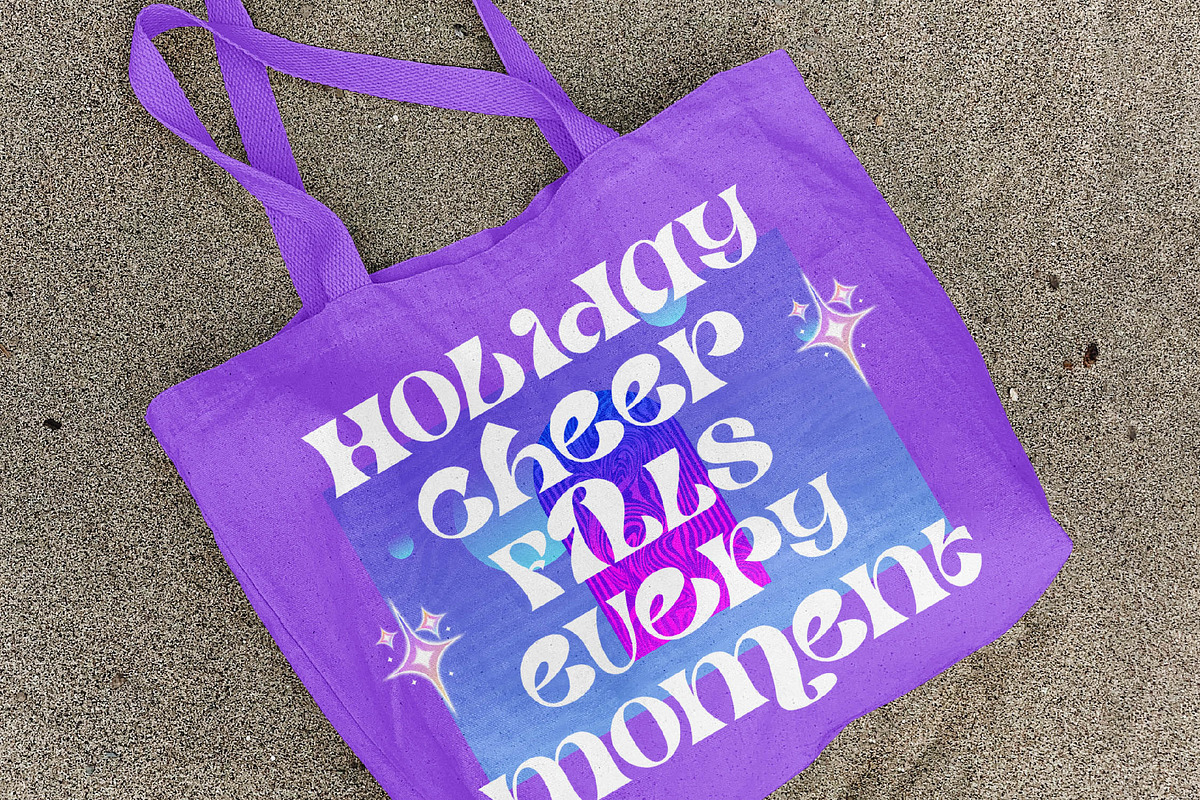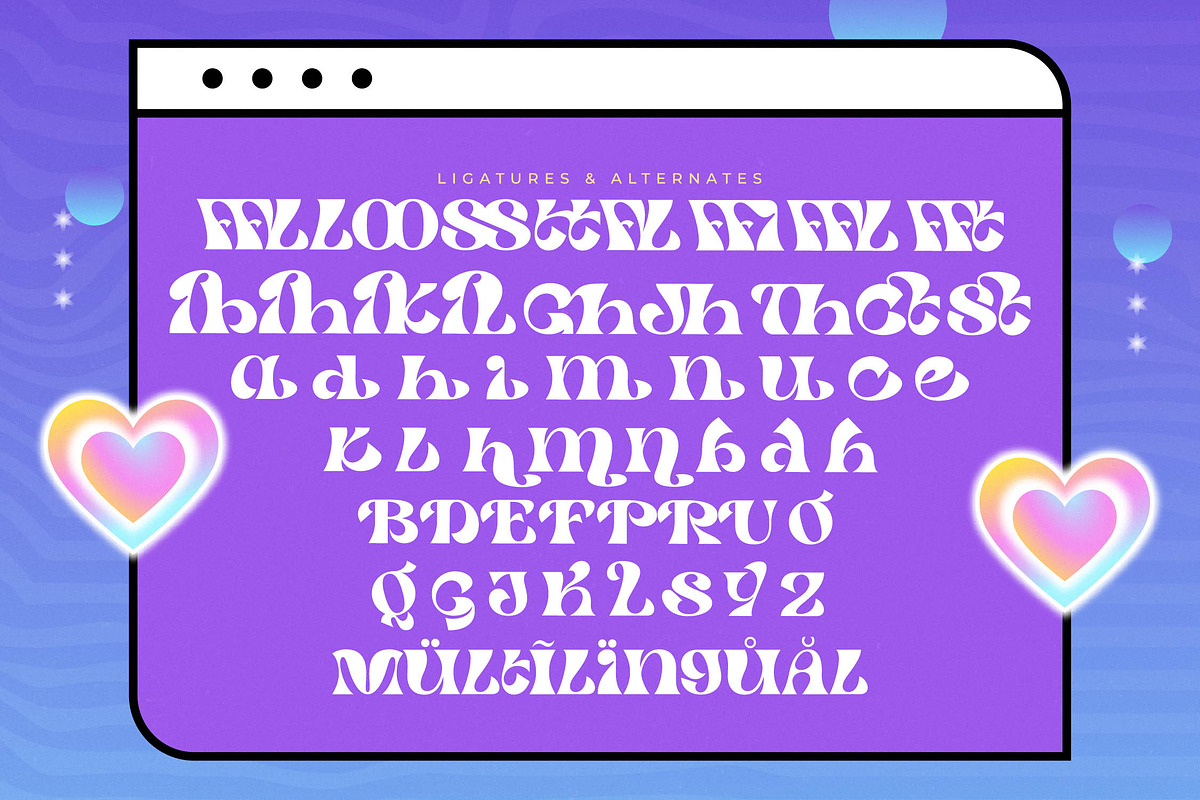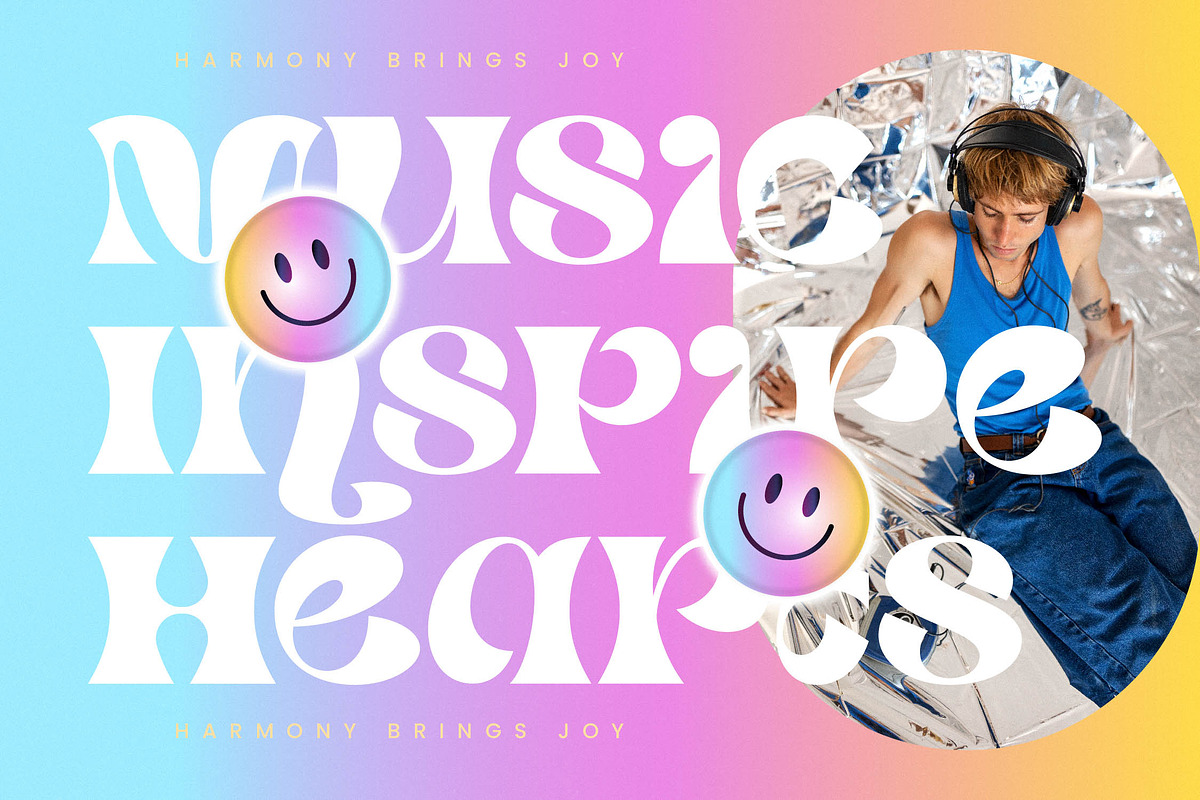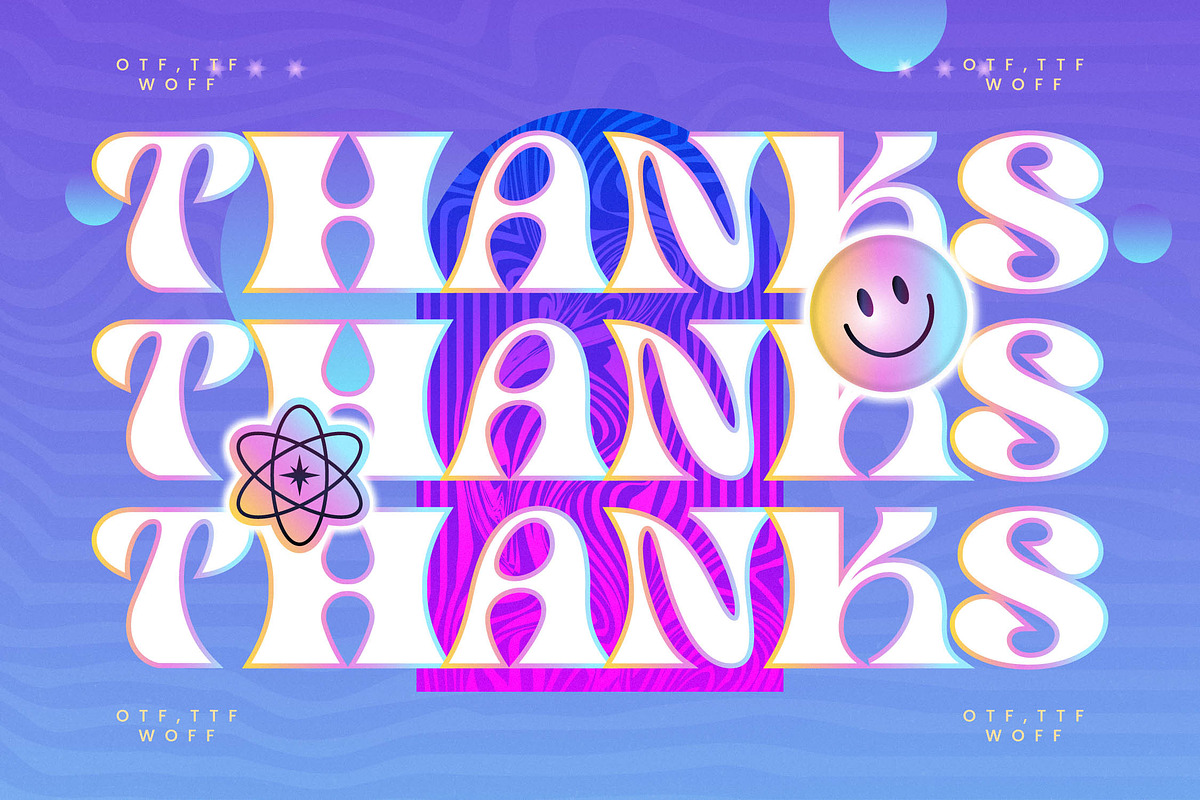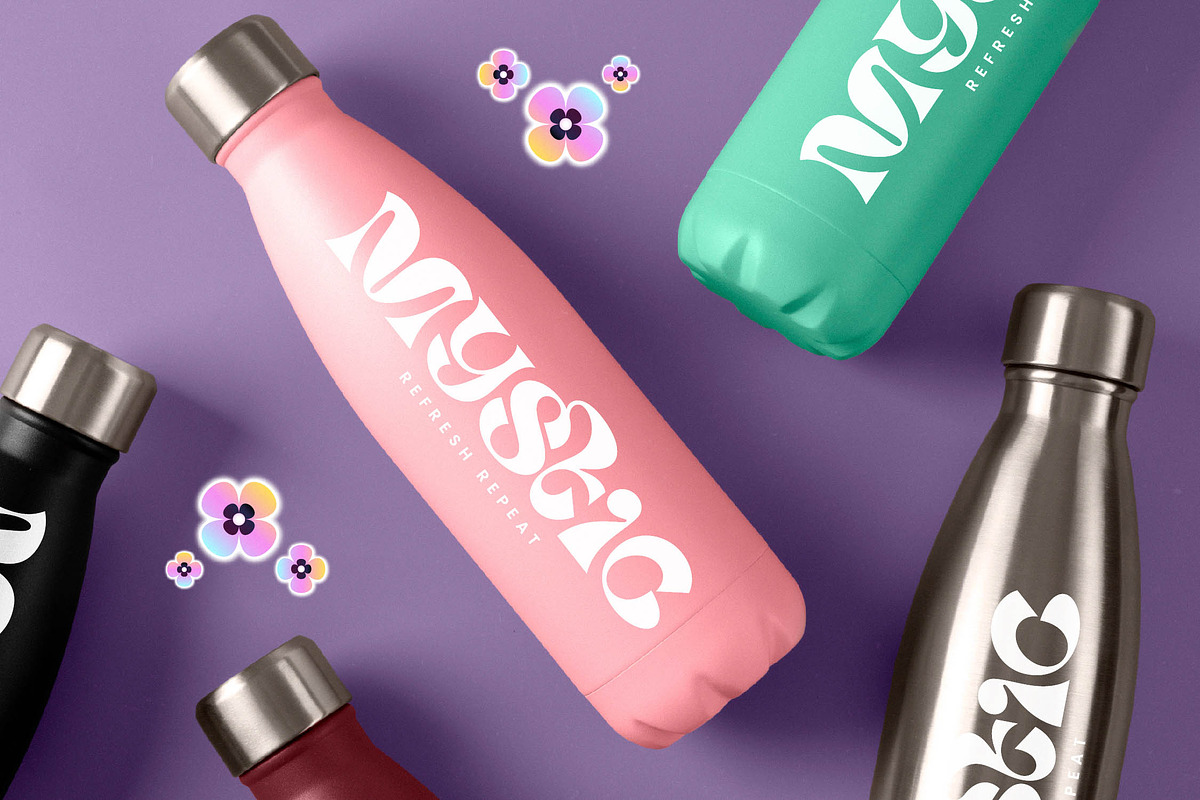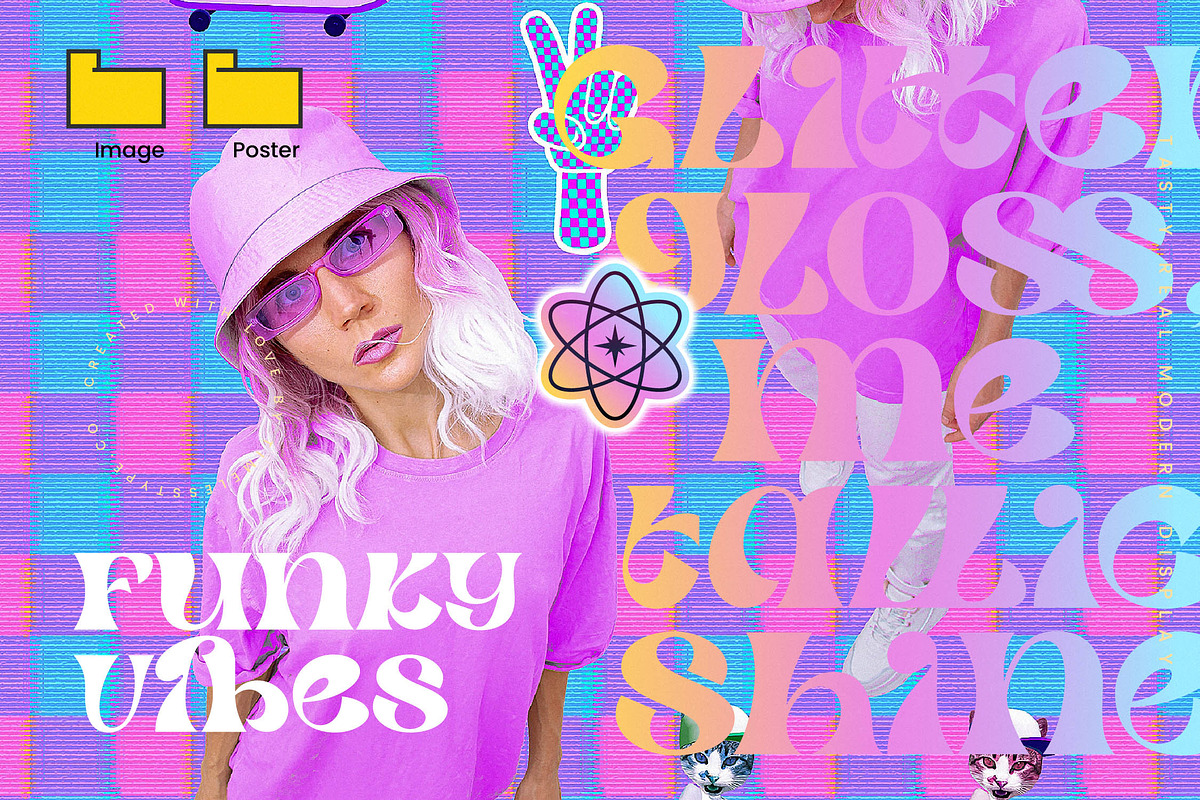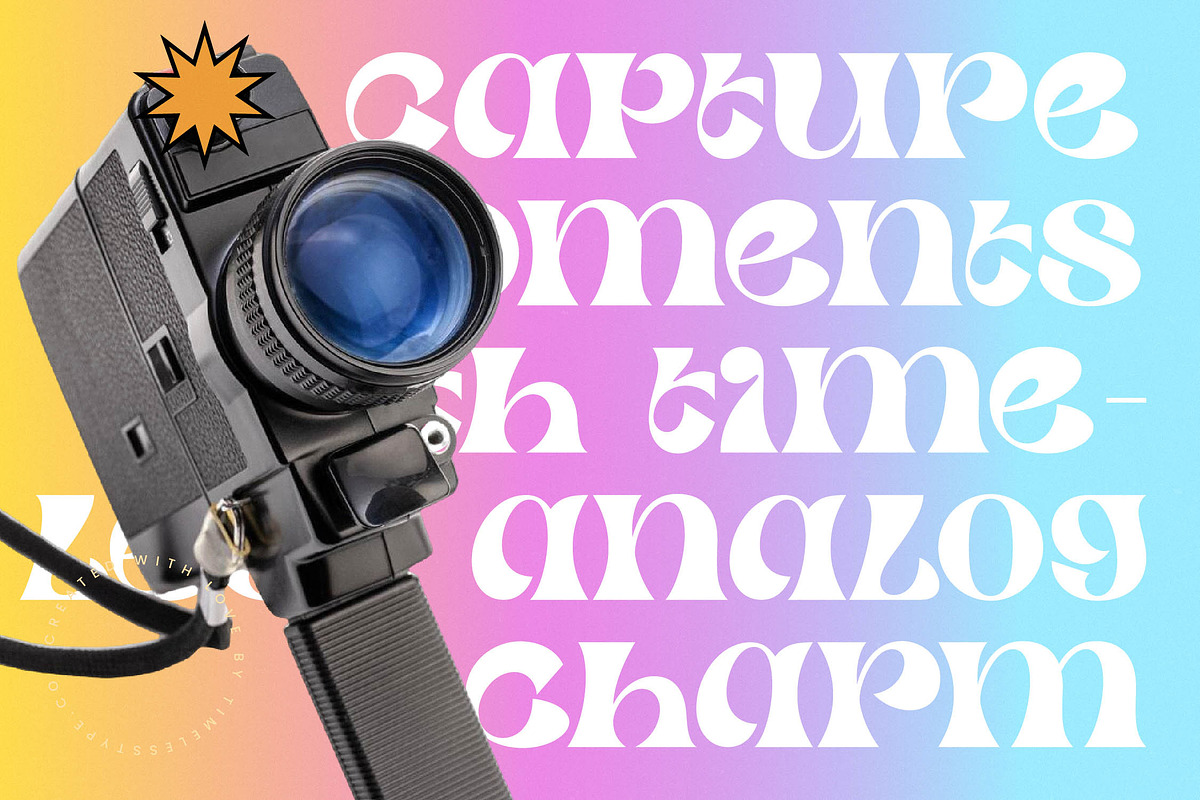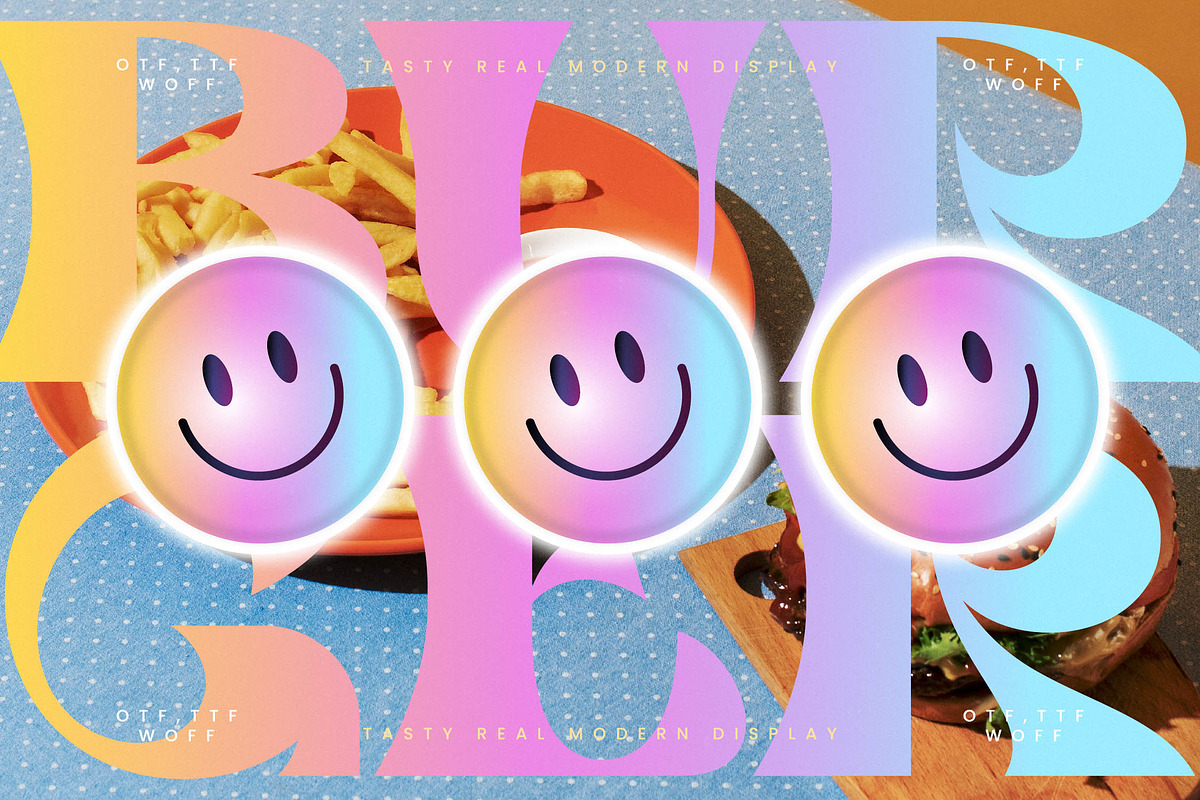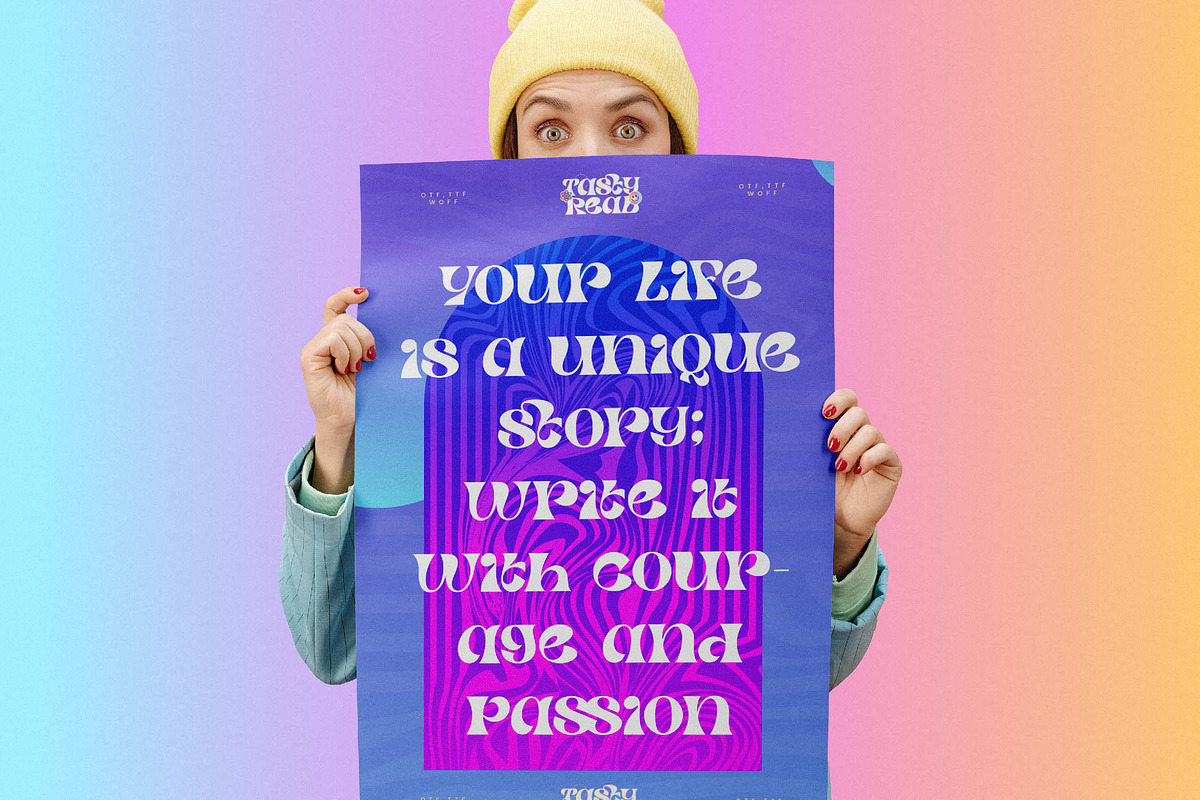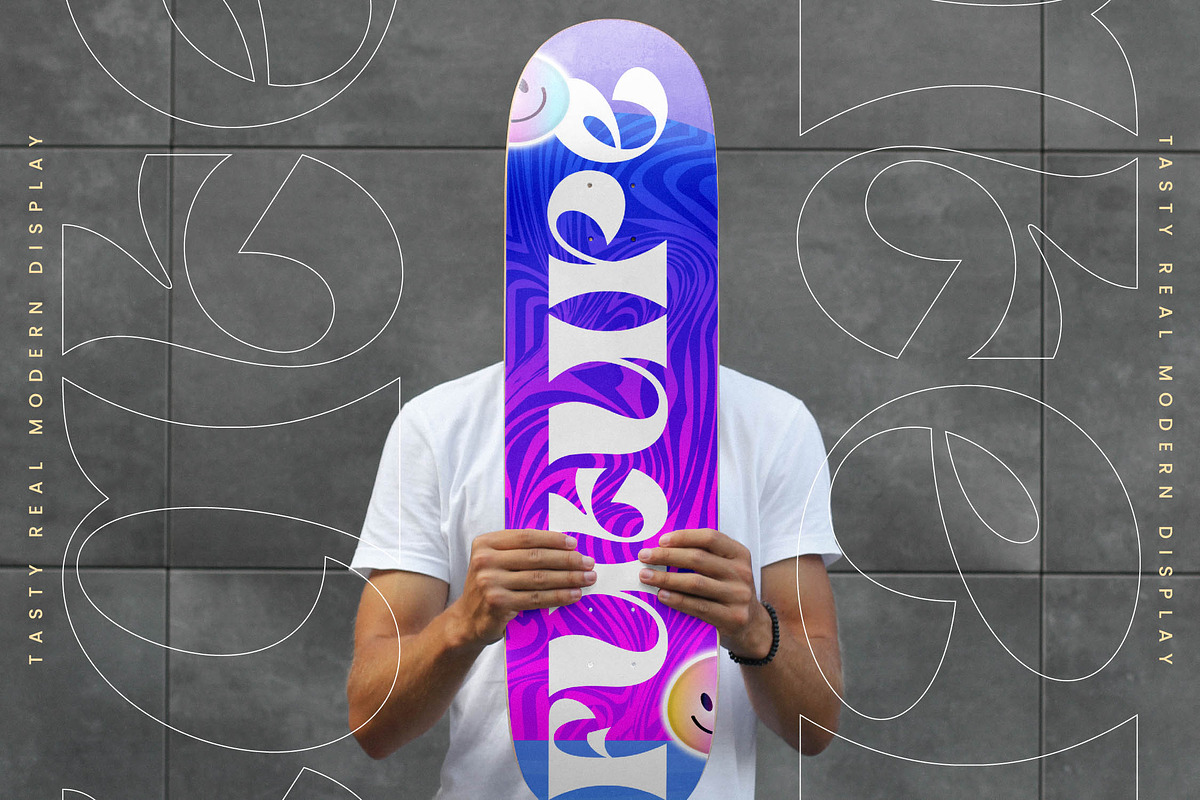
Tasty Real Modern Display Font
Elevate your creative vision with the mesmerizing curves and liquid energy of Tasty Real. This font is a love letter to bold, expressive design that demands attention and lingers in the mind.
Inspired by the fluid motion of psychedelic 1970s posters and the high-energy acid graphics of the late 90s, this typeface bridges the gap between vintage nostalgia and futuristic edge. It captures a dreamlike atmosphere where every letterform flows with an organic, rhythmic pulse.
As a modern serif display, this typeface delivers a powerful branding impact through its unique silhouette and luxury typography feel. Its high-contrast serif structures ensure that every headline acts as a standalone piece of art, making it the ultimate editorial font for projects requiring a distinct voice.
Staying ahead of the modern serif trend, this font taps into the current demand for character-driven typography that breaks away from rigid minimalism. Designers seeking editorial display fonts will find its expressive features perfect for creating custom looks without the custom price tag.
Transform your next logo design or high-end branding project into a visual masterpiece that stands out on the shelf. From avant-garde packaging and bold fashion lookbooks to a whimsical wedding invitation or editorial layout, its versatility is unmatched in the display category.
This comprehensive set features over 18 ligatures and 33 unique alternates and swashes to give your text a hand-lettered feel. With full multilingual support and a wide array of international characters, it is ready for global creative endeavors.
- Ligature 18 Alternate 33